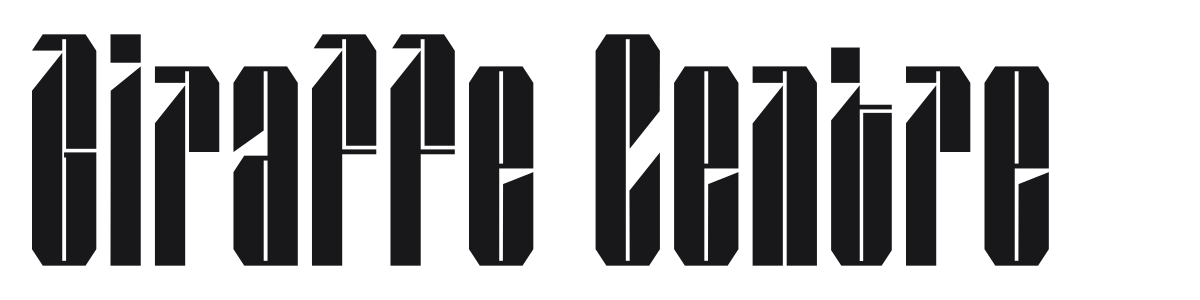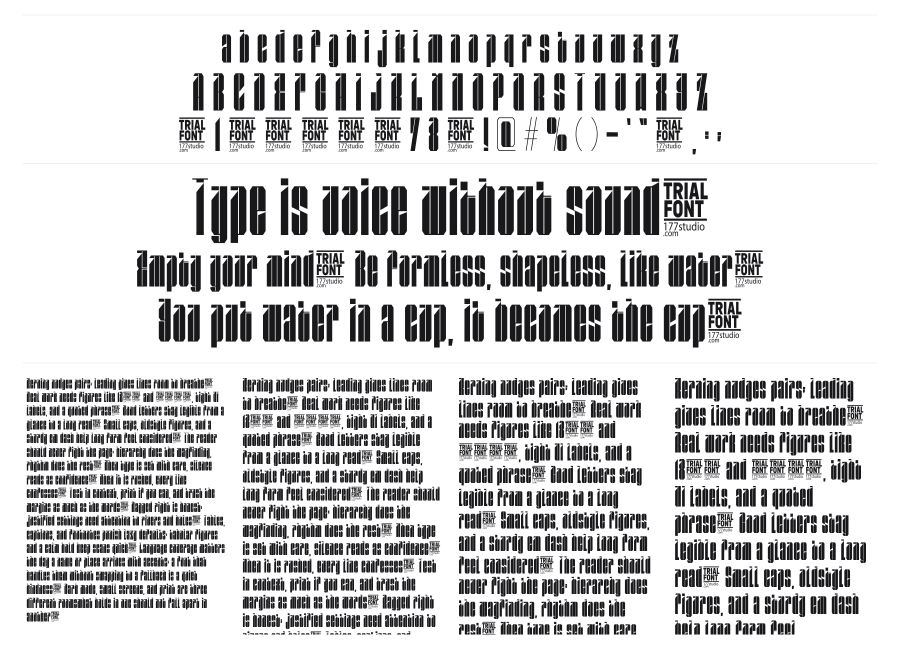
Giraffe Centre
Giraffe Centre is an ultra-condensed modern gothic display font with extreme vertical proportions and heavy blackletter-inspired construction. Sharp angular cuts and notched terminals give each character a faceted, almost carved quality that intensifies the already dramatic silhouette. It commands attention at large sizes, suited to posters, band logos, and bold editorial headlines.